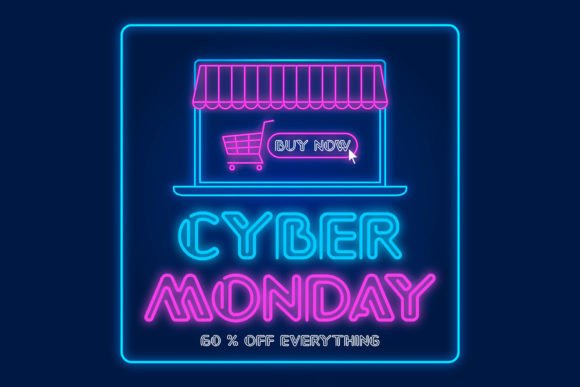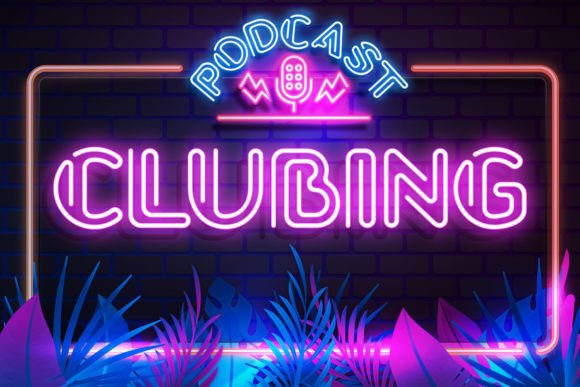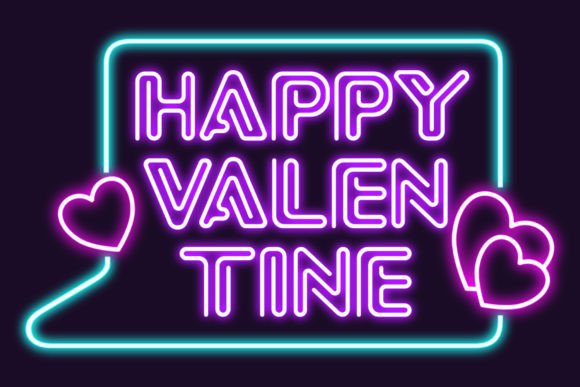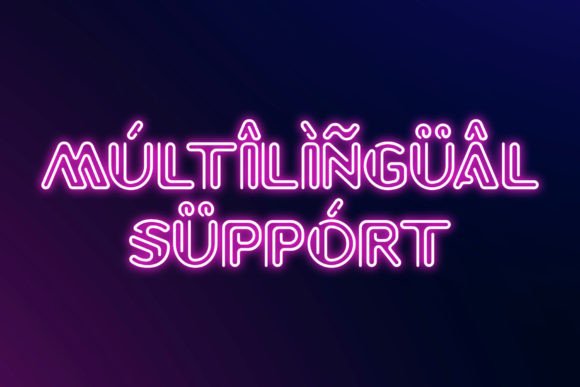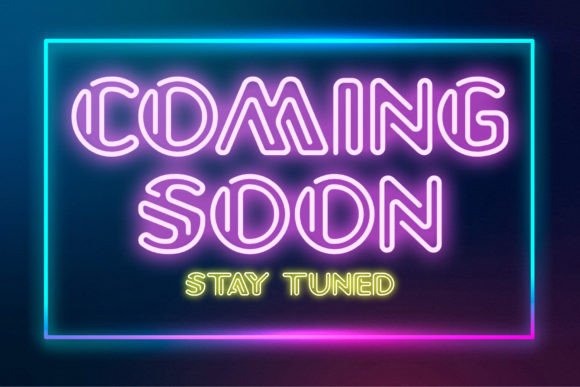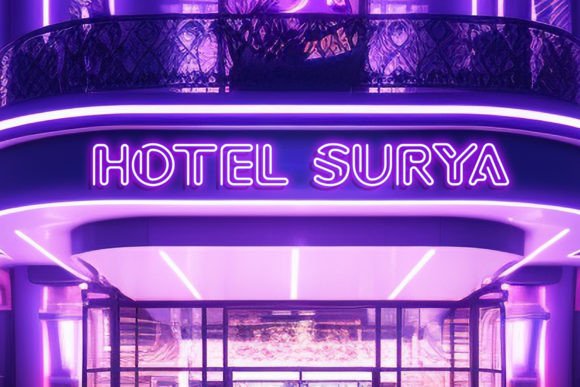
Introducing Gleamy Neon: The Futuristic Font that Lights Up Your Designs
In the world of design, fonts play a crucial role in conveying the tone and aesthetic of a project. If you’re looking for a font that can add a dynamic and modern touch to your designs, look no further than Gleamy Neon. This cutting-edge font is inspired by the sleek aesthetics of neon light signs, making it perfect for designers and crafters who want to create eye-catching and futuristic designs.
The Inspiration Behind Gleamy Neon
Gleamy Neon is inspired by the classic neon light signs that have been a staple of urban landscapes for decades. The font’s design is based on the sleek and minimalist aesthetic of neon tubes, with smooth, rounded corners and lines that evoke the glow of neon lights. The result is a font that is both modern and nostalgic, perfect for designers who want to add a touch of retro-futurism to their designs.
Key Features of Gleamy Neon
So, what makes Gleamy Neon so special? Here are some of its key features:
- Minimalist letterforms: Gleamy Neon’s letterforms are designed to be clean and minimalist, making it perfect for use in a wide range of designs.
- Smooth, rounded corners: The font’s smooth, rounded corners give it a soft and approachable feel, while also evoking the glow of neon lights.
- Lines with open start and end points: True to authentic neon tubes, Gleamy Neon’s lines have open start and end points, making it perfect for adding glowing light effects or creating real-world neon signs.
Uses for Gleamy Neon
Gleamy Neon is a versatile font that can be used in a wide range of projects, including:
- Logos: Add a touch of modernity and sophistication to your logo with Gleamy Neon.
- Headlines: Use Gleamy Neon to create eye-catching headlines that grab attention.
- Posters: Create stunning posters that showcase your brand’s personality with Gleamy Neon.
- Badges: Design custom badges that pop with Gleamy Neon’s bold and futuristic style.
- T-shirts: Add a touch of neon cool to your t-shirt designs with Gleamy Neon.
- Social media posts: Use Gleamy Neon to create eye-catching social media posts that stand out from the crowd.
- Certificates: Add a touch of elegance and sophistication to your certificates with Gleamy Neon.
- Labels: Design custom labels that showcase your brand’s personality with Gleamy Neon.
Why Choose Gleamy Neon?
So, why should you choose Gleamy Neon for your next design project? Here are just a few reasons:
- Unique and eye-catching: Gleamy Neon is a truly unique font that will help your designs stand out from the crowd.
- Versatile: Gleamy Neon can be used in a wide range of projects, from logos and headlines to posters and social media posts.
If you’re looking for a font that can add a dynamic and modern touch to your designs, look no further than Gleamy Neon. With its sleek and minimalist aesthetic, versatile design, and ease of use, Gleamy Neon is the perfect choice for designers and crafters who want to create eye-catching and futuristic designs. So why wait? Download Gleamy Neon today and start lighting up your designs!